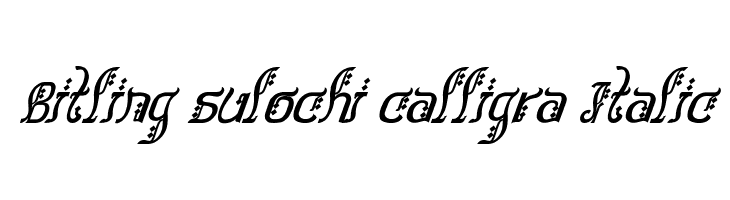
( Rajendra Bitling - www.rbitling.com )
An ornate, calligraphic font with decorative elements.
( Rajendra Bitling - www.rbitling.com )
An ornate and decorative font with intricate flourishes and high contrast.